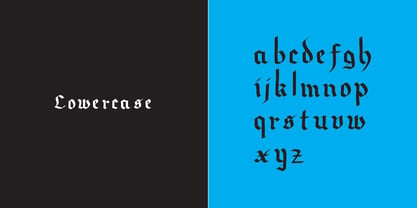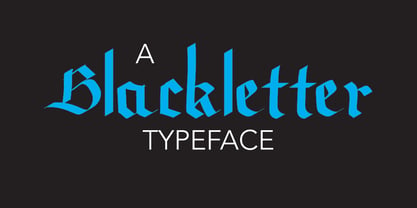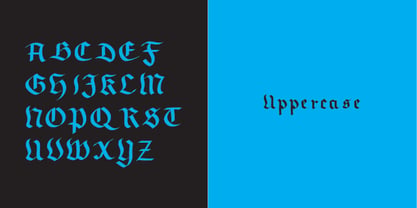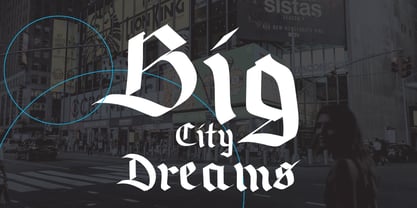
Nightcrawler
by The Design Speak
The Nightcrawler Font Family was designed by Edward Marshall and published by The Design Speak. Nightcrawler contains 1 styles. More about this family
Night Crawler, exudes a dark, edgy elegance with a modern twist on traditional Gothic script. It features sharp, angular strokes with subtle organic textures that give it a hand-crafted, slightly distressed feel. The letterforms are meticulously detailed, blending dramatic thick-and-thin contrasts with ornate flourishes, evoking a sense of mystery and rebellion.
Night Crawler is ideal for designs that need a moody, medieval vibe, such as album covers, gothic-inspired branding, or avant-garde projects. Its name captures the essence of nocturnal allure and stealth, making it perfect for projects that seek to leave a bold, unforgettable impression.
Designers: Edward Marshall
Foundry: The Design Speak